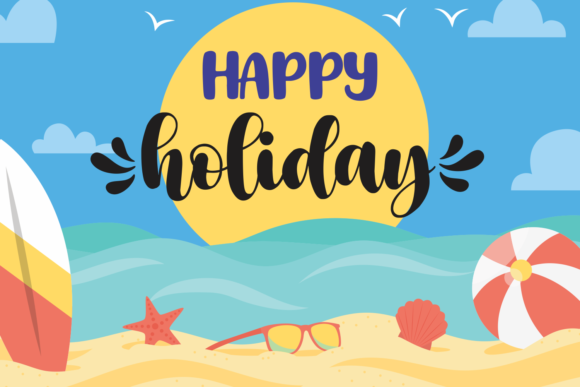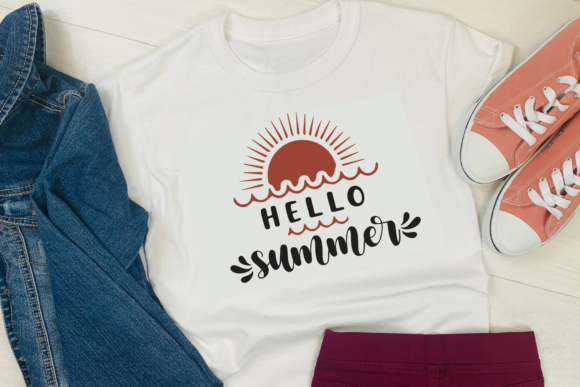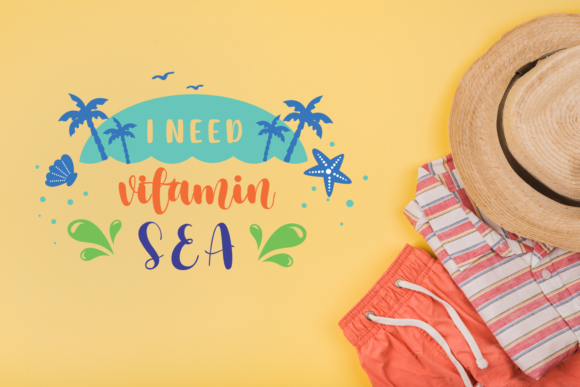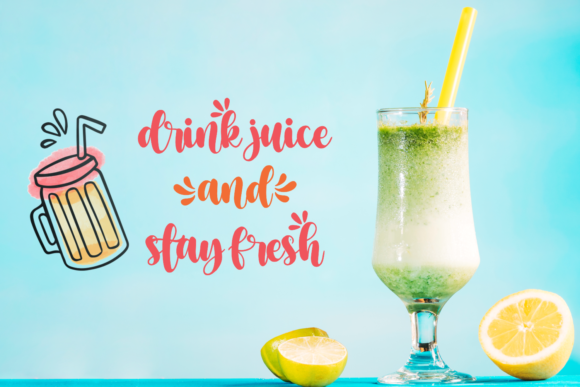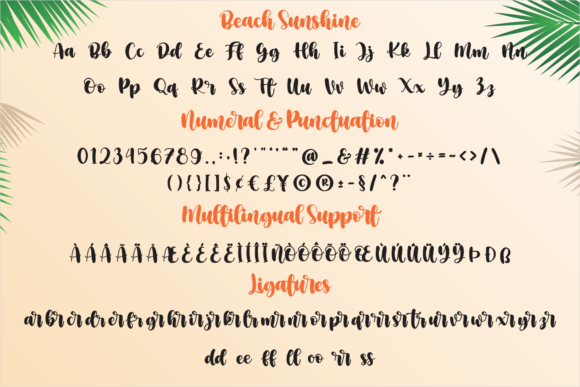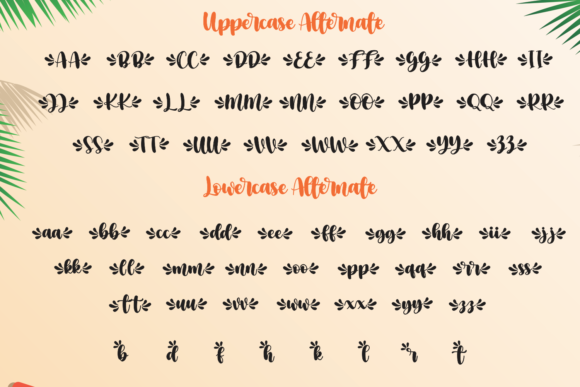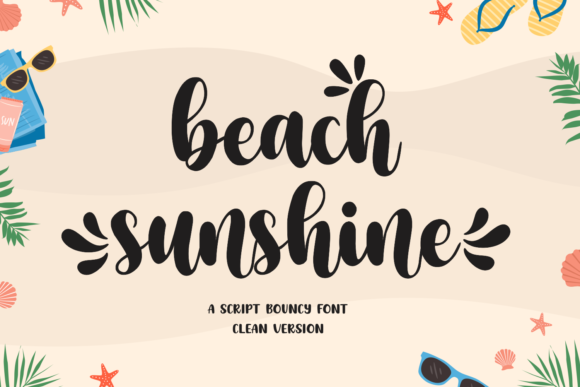
Introducing Beach Sunshine Font: The Perfect Addition to Your Design Arsenal
Are you tired of using the same old fonts in your designs? Look no further! Beach Sunshine Font is a beautiful, delicate, and sweet handwritten font that’s sure to elevate your creations to the next level. Its distinct and well-rounded letters make it a masterpiece that’s hard to resist. In this article, we’ll dive into the world of Beach Sunshine Font and explore its features, benefits, and uses.
A Delicate and Sweet Handwritten Font
Beach Sunshine Font is a stunning example of a handwritten font done right. Its delicate and sweet appearance makes it perfect for designs that require a touch of elegance and sophistication. The font’s letters are carefully crafted to create a sense of movement and fluidity, giving it a bouncy style that’s sure to capture the attention of your audience.
Distinct and Well-Rounded Letters
One of the standout features of Beach Sunshine Font is its distinct and well-rounded letters. Each letter is meticulously designed to create a sense of harmony and balance, making it easy to read and understand. The font’s letters are also generously spaced, which adds to its overall aesthetic appeal.
Perfect for Spectacular Designs
Beach Sunshine Font is a versatile font that can be used in a variety of designs, from digital projects to print materials. Its unique style makes it perfect for creating spectacular designs that stand out from the crowd. Whether you’re a designer, crafter, or DIY enthusiast, this font is sure to become a favorite in your collection.
Benefits of Using Beach Sunshine Font
- Elegant and Sophisticated: Beach Sunshine Font adds a touch of elegance and sophistication to any design.
- Versatile: The font can be used in a variety of designs, from digital projects to print materials.
- Easy to Read: The font’s letters are carefully crafted to create a sense of movement and fluidity, making it easy to read and understand.
- Unique: Beach Sunshine Font has a unique style that’s sure to capture the attention of your audience.
Uses of Beach Sunshine Font
Beach Sunshine Font can be used in a variety of projects, including:
- Digital Projects: Use the font in your digital projects, such as social media graphics, blog posts, and website designs.
- Print Materials: The font is perfect for print materials, such as brochures, flyers, and business cards.
- Crafting: Beach Sunshine Font is a great addition to any crafter’s collection. Use it to create beautiful handmade cards, scrapbook pages, and other paper crafts.
Tips for Using Beach Sunshine Font
Here are some tips for using Beach Sunshine Font in your designs:
- Pair it with Other Fonts: Experiment with pairing Beach Sunshine Font with other fonts to create a unique and interesting look.
- Use it in Headlines: The font’s bold and playful style makes it perfect for headlines and titles.
- Add it to Your Design Arsenal: Beach Sunshine Font is a versatile font that can be used in a variety of designs. Add it to your collection today!
In conclusion, Beach Sunshine Font is a beautiful and versatile font that’s perfect for designers, crafters, and DIY enthusiasts. Its delicate and sweet appearance, distinct and well-rounded letters, and bouncy style make it a masterpiece that’s hard to resist. Whether you’re looking to create spectacular designs or add a touch of elegance and sophistication to your projects, Beach Sunshine Font is the perfect addition to your design arsenal.